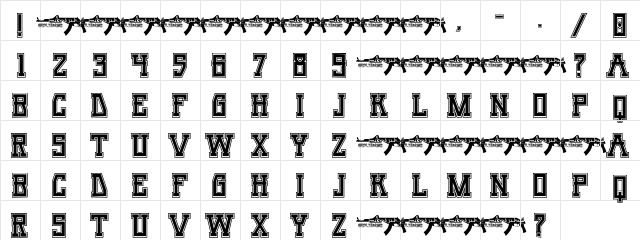
Umar Slab College Umar Slab College
Design Context for Umar Slab College Typeface
Umar Slab College has the bold swagger of sports branding: strong, assertive letterforms designed to dominate headlines and jerseys alike.
A natural choice for gym brands, fantasy sports, jersey lettering, and action-driven headlines.
Font Pairing: Use alongside a condensed or geometric sans for supporting copy — keep the pairing bold, functional, and free of ornament.
Pro Tip: Use Umar Slab College in all-caps headlines where its athletic energy can fully express itself. Pair with a solid, simple sans for supporting text.